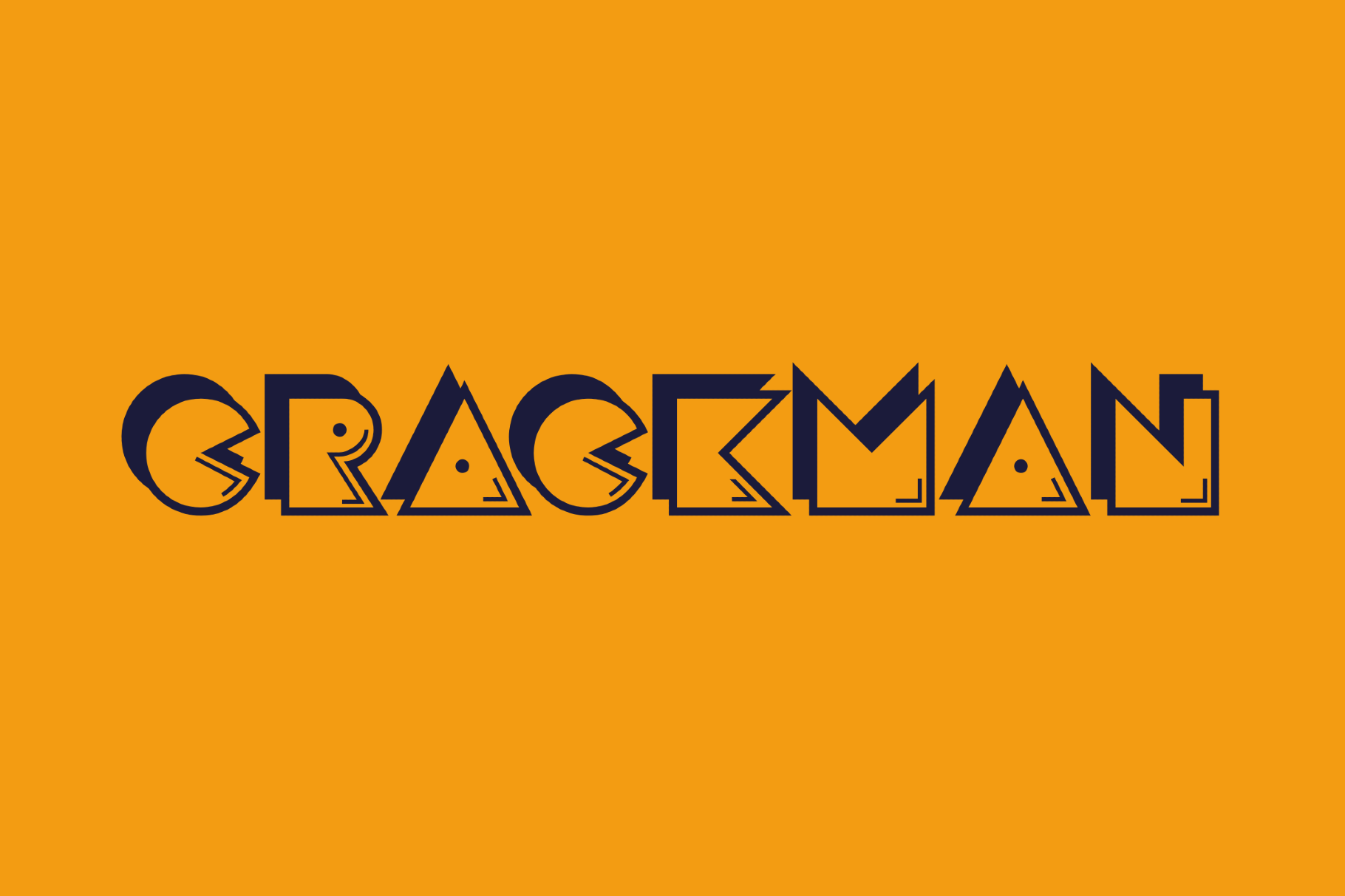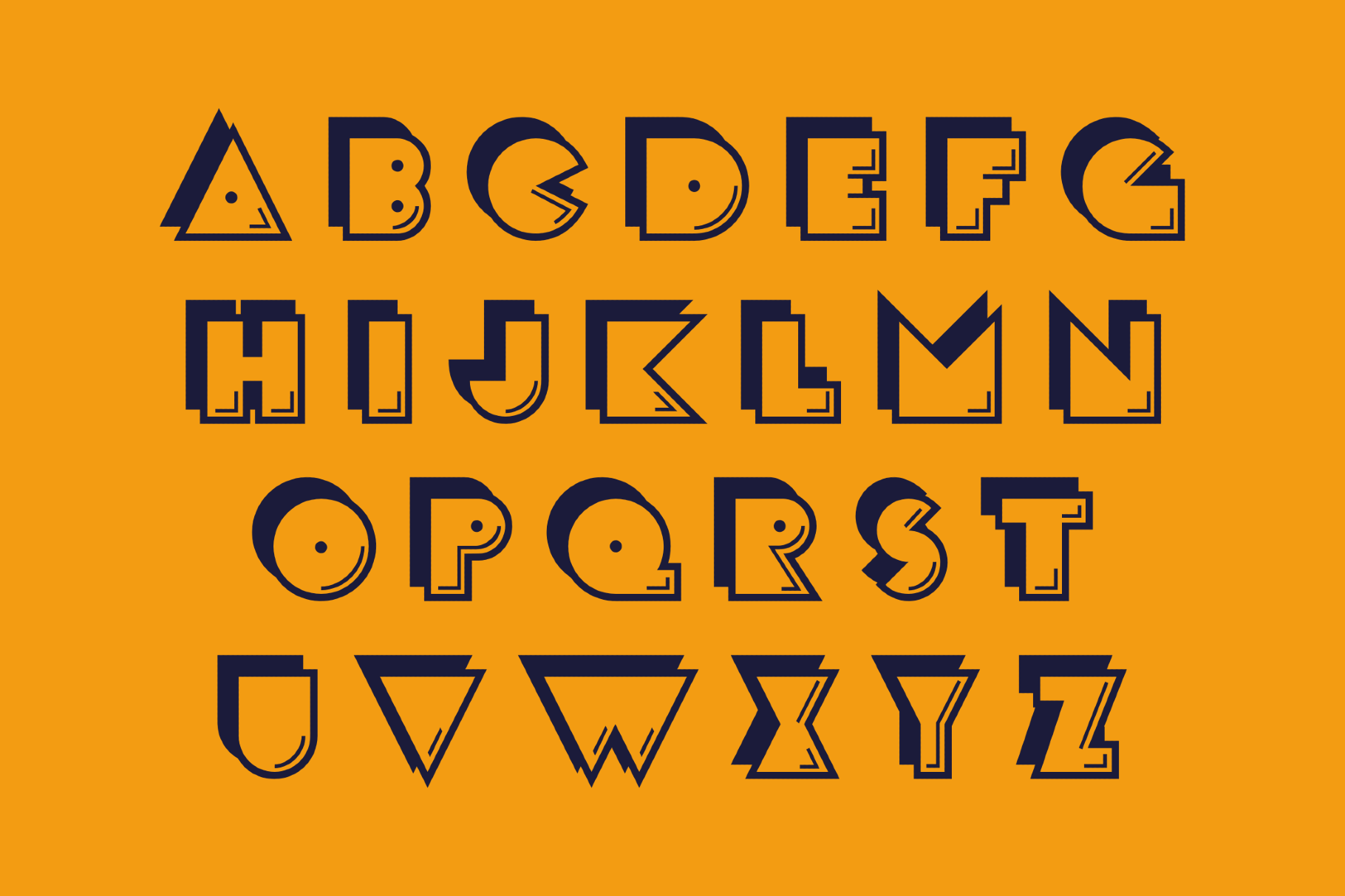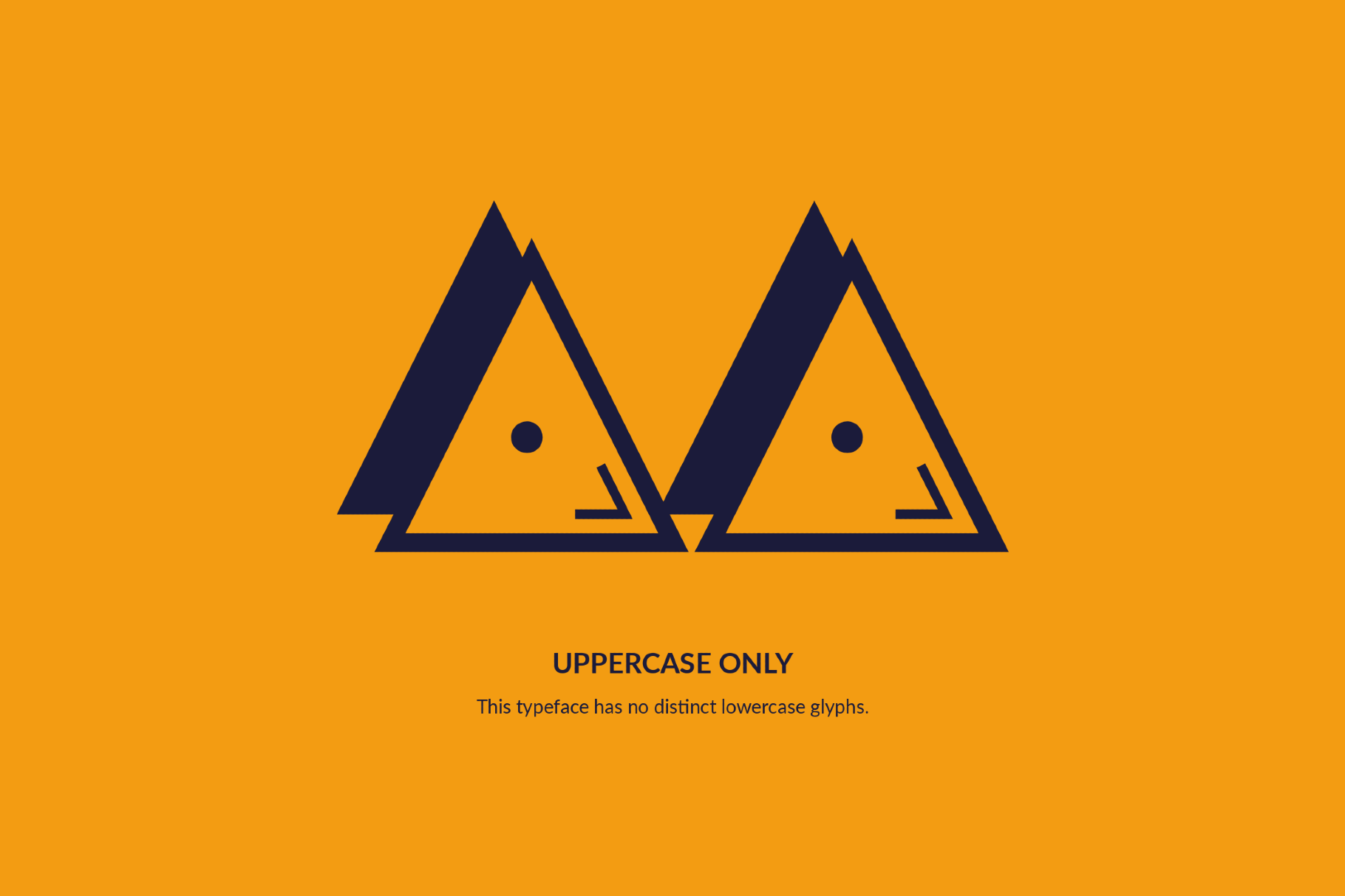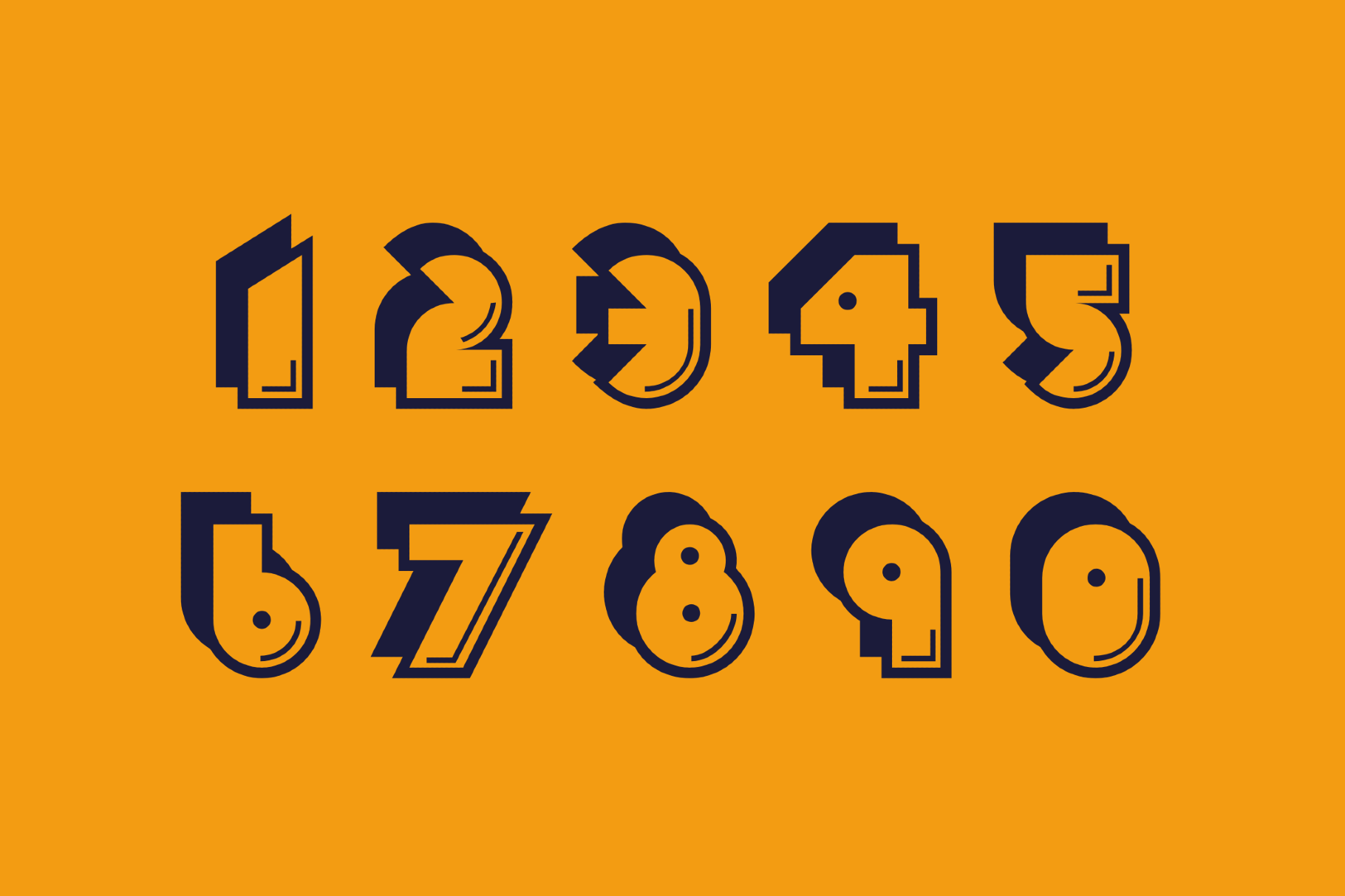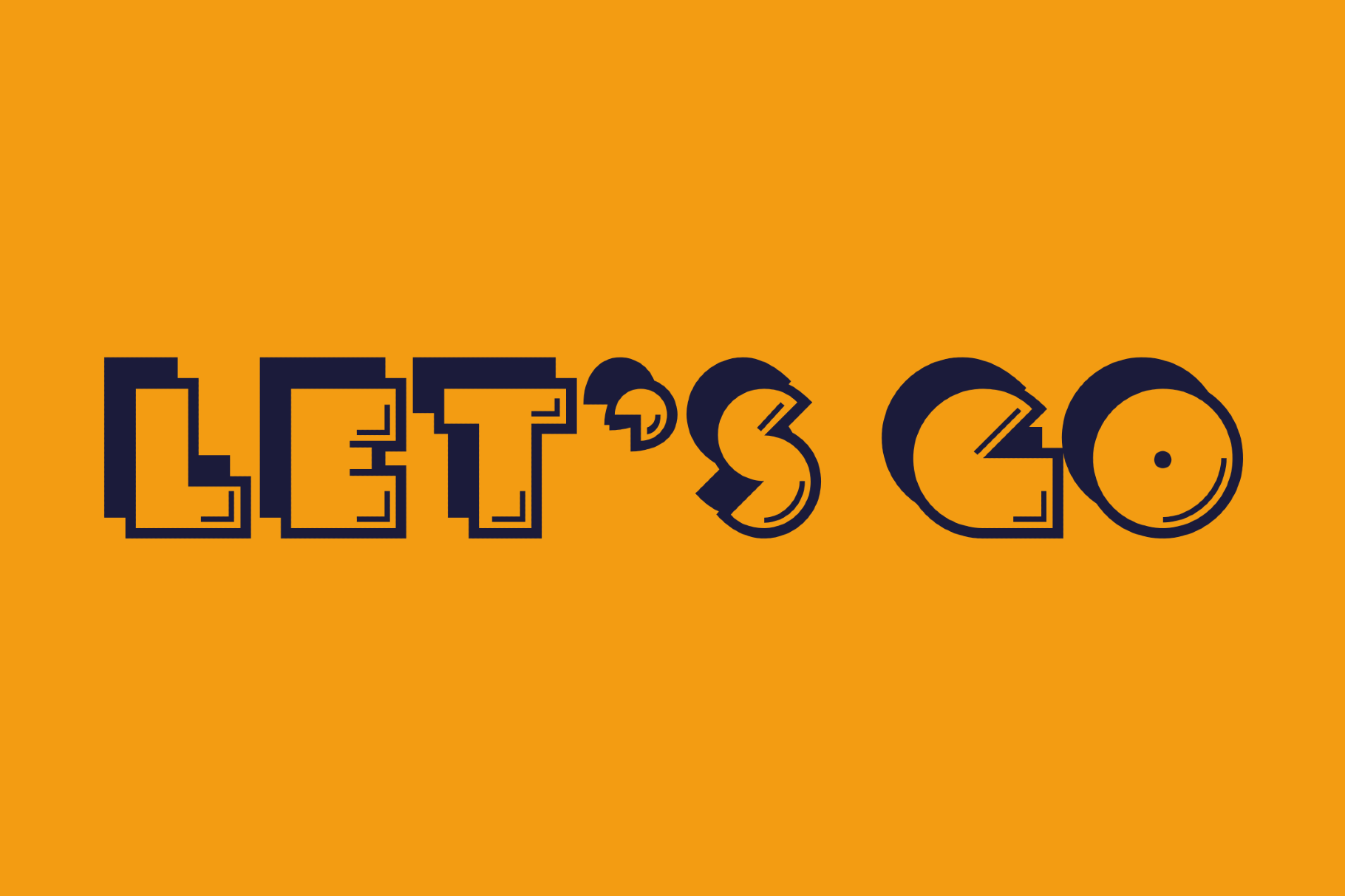
Crackman - Video Game Font Family
Crackman
Crackman is a geometric gaming font cut from wedges, circles and hard corners, with a showy layered construction. It echoes early arcade insignias drawn for instant recognition. It is ideal for game logos, poster billing, album sleeves, merch, packaging, event identities and bold social artwork.